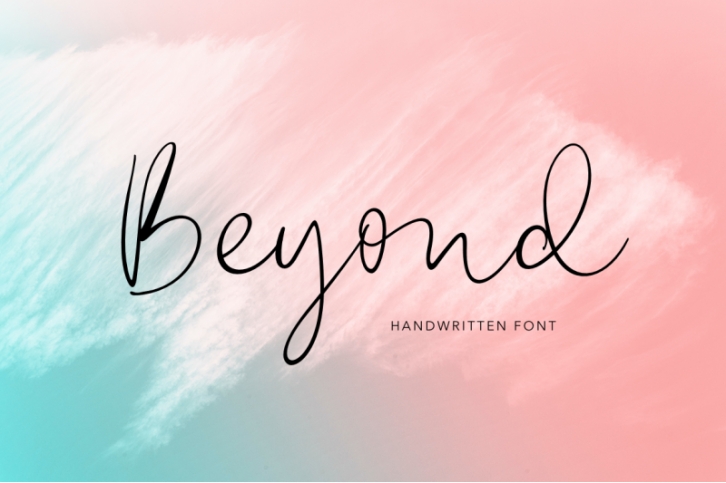
Beyond script- a new handwritten font.
This font is ideal for branding and decorate your any project, are perfect for wedding invitation or your blog. Also with their help, you can create a logo or beautiful frame for your home. Or just use for your small business, book covers, stationery, marketing, magazines and more. Special for you I prepared a lot ligatures: tt, ll, on, om, or, op, oo, rr, and alternates b, f, d, h, k, l, t, g, y.